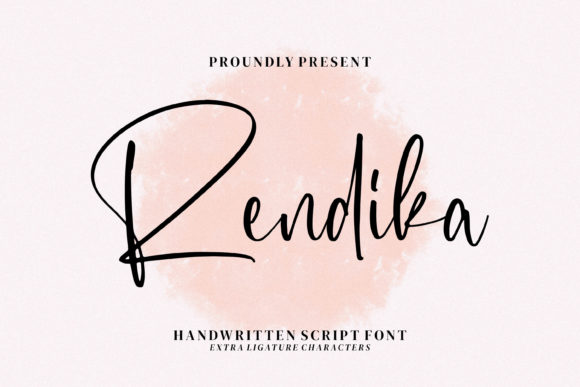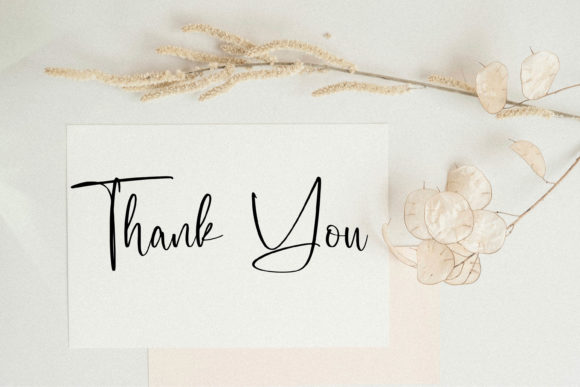
About Rendika Font
Rendika is a premium handwritten font, suitable for any projects such as logos, branding projects, homeware designs, product packaging, mugs, quotes, posters, shopping bags, t-shirts, book covers, name cards, invitation cards, greeting cards, labels, photography, watermark, special events, and all your other luxury projects that need a premium signature taste.